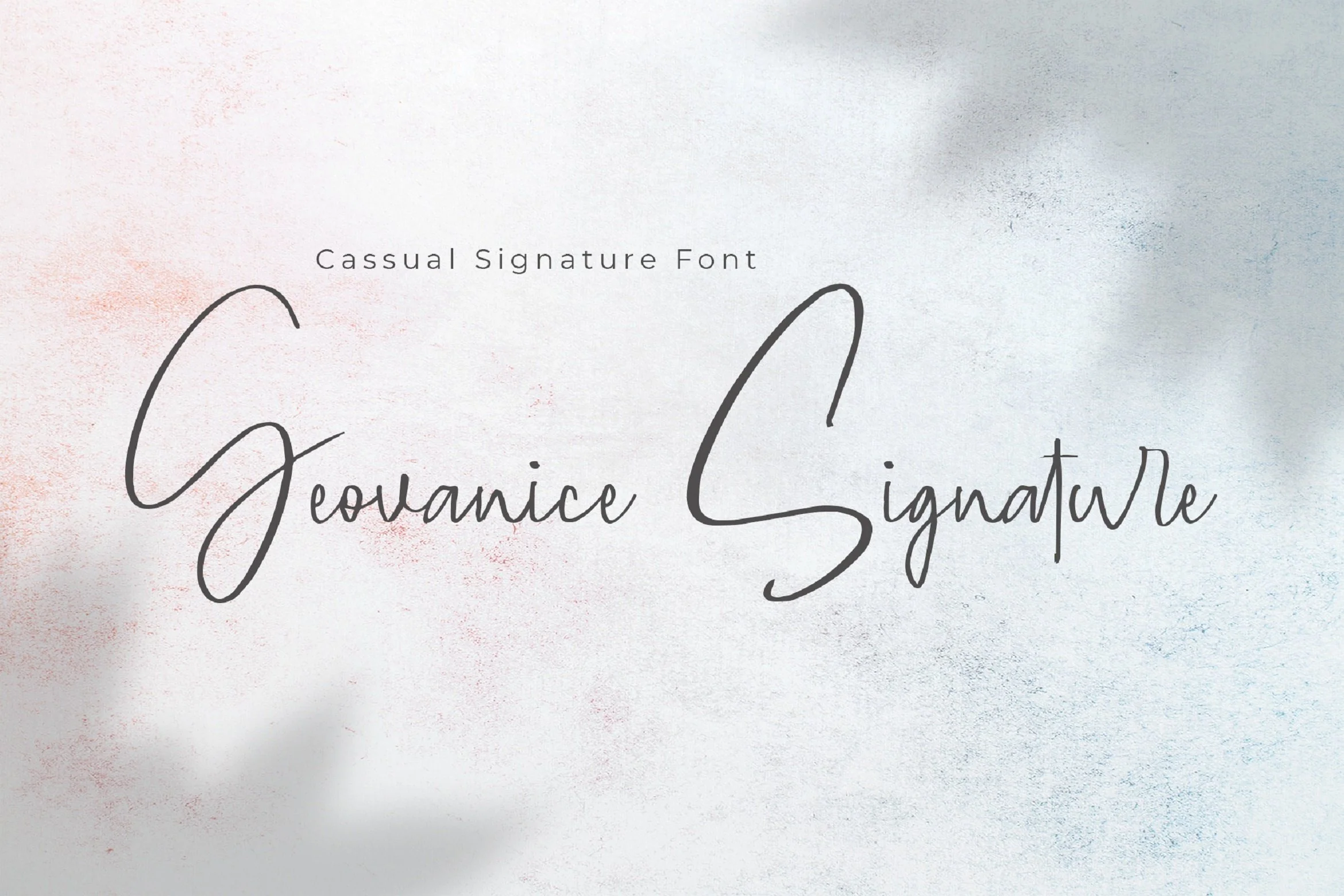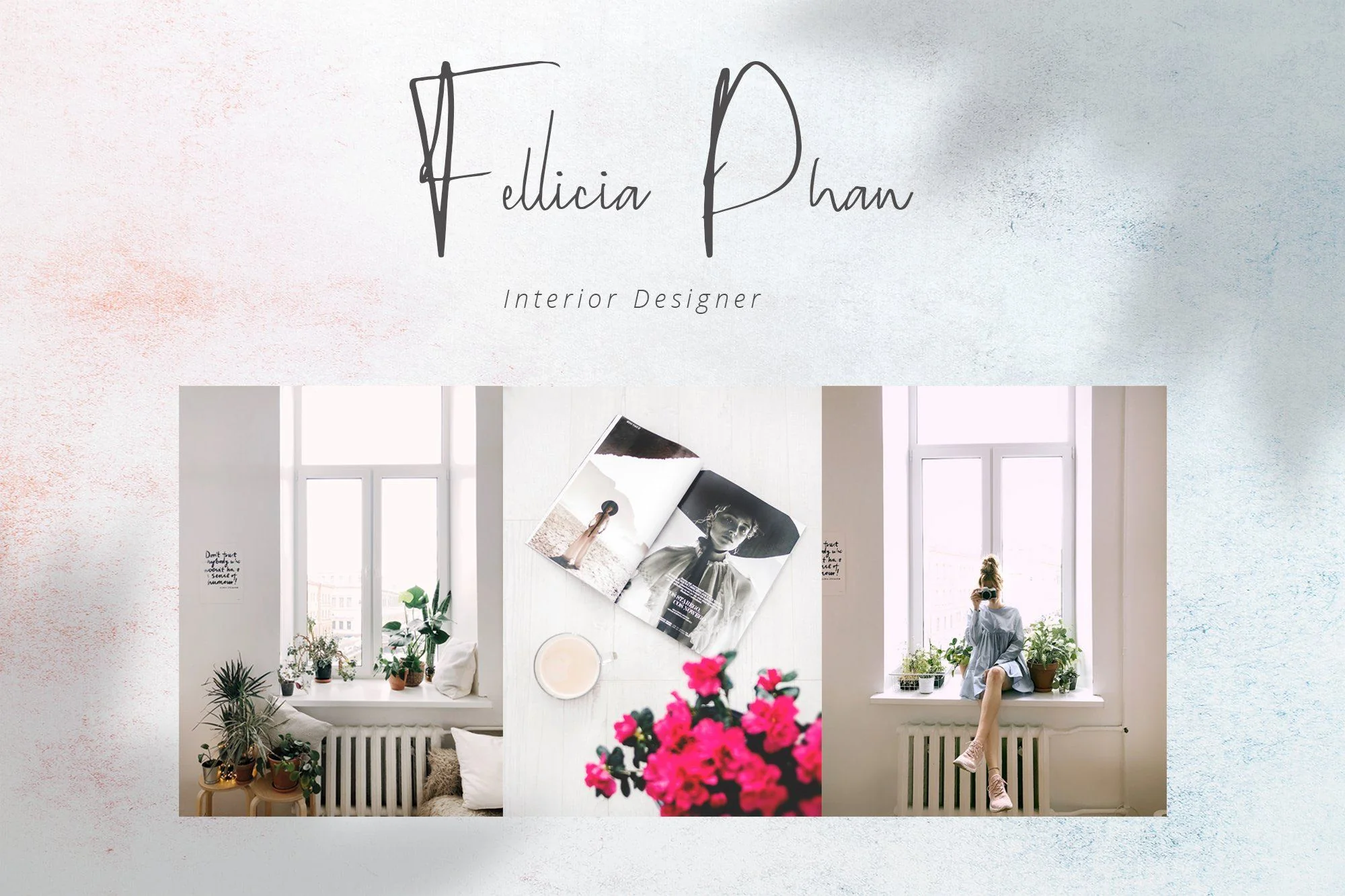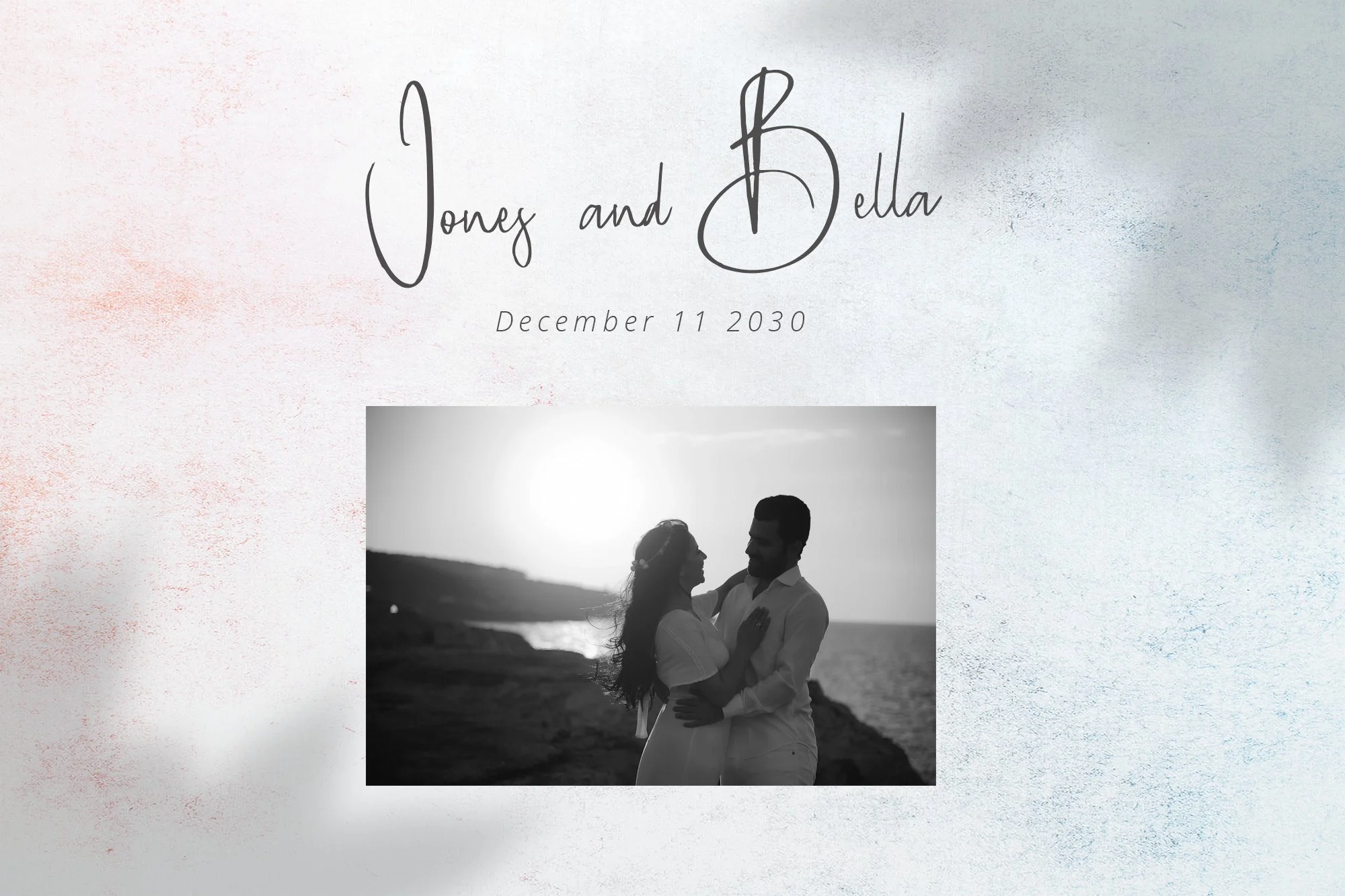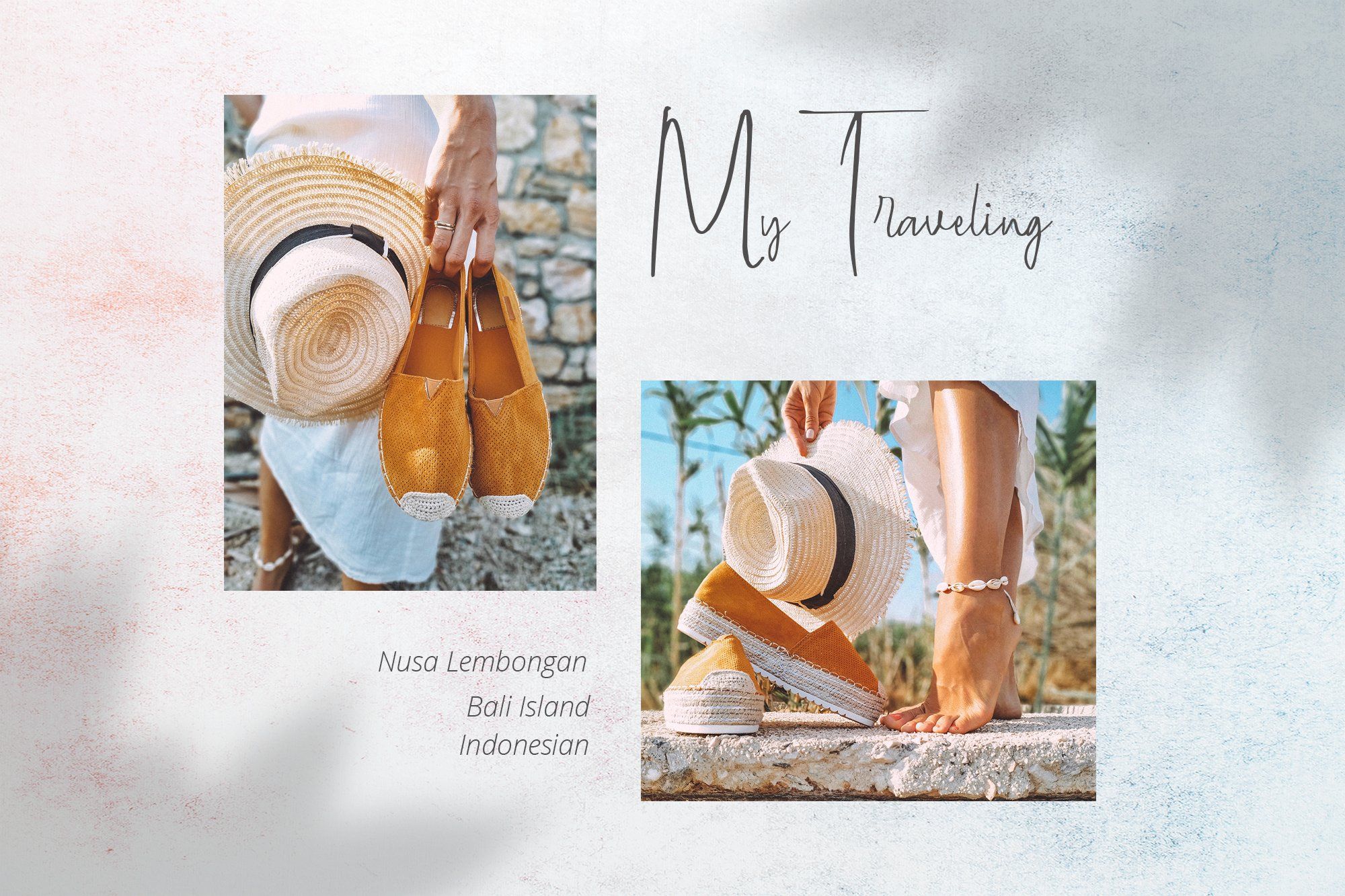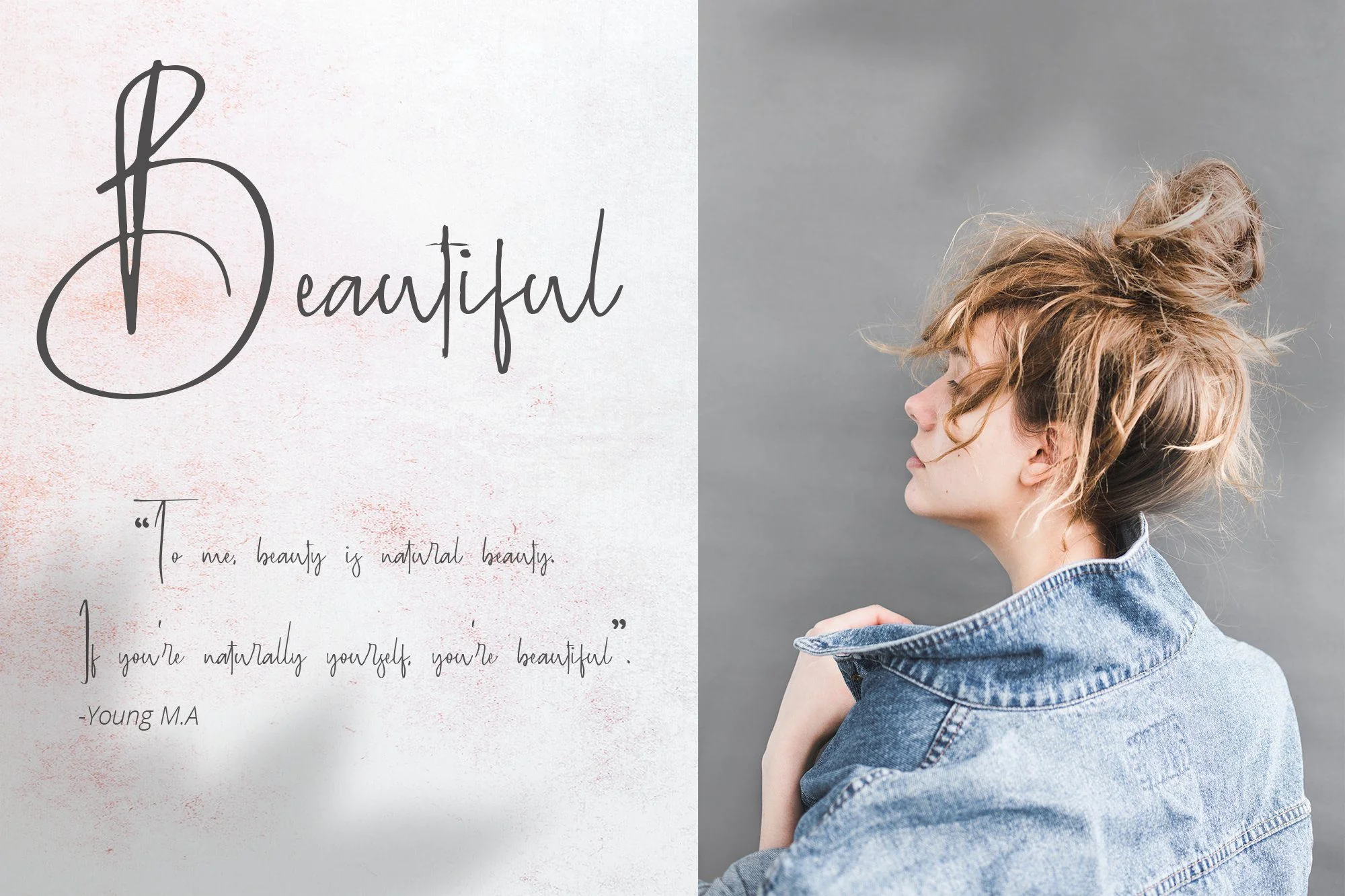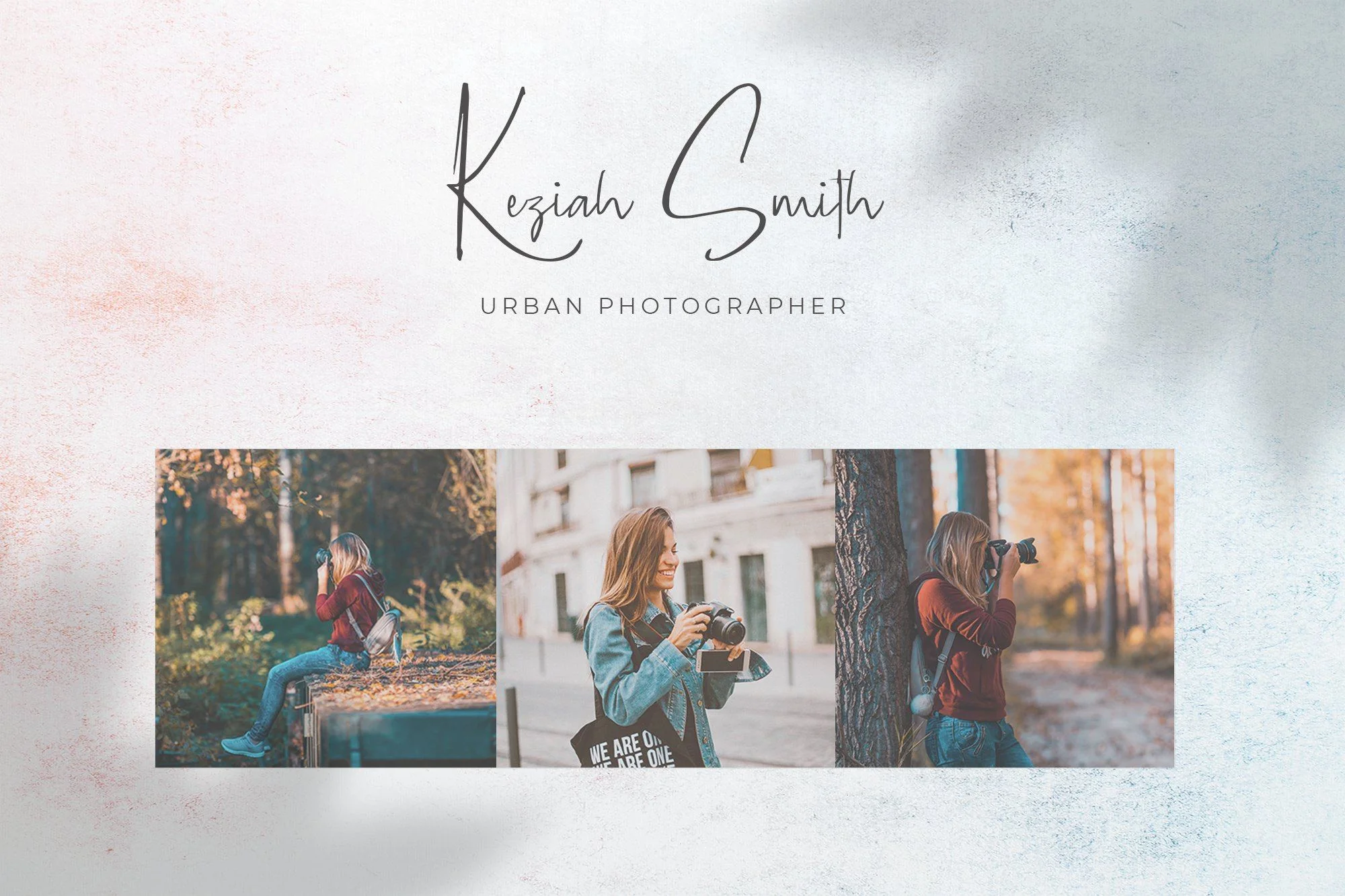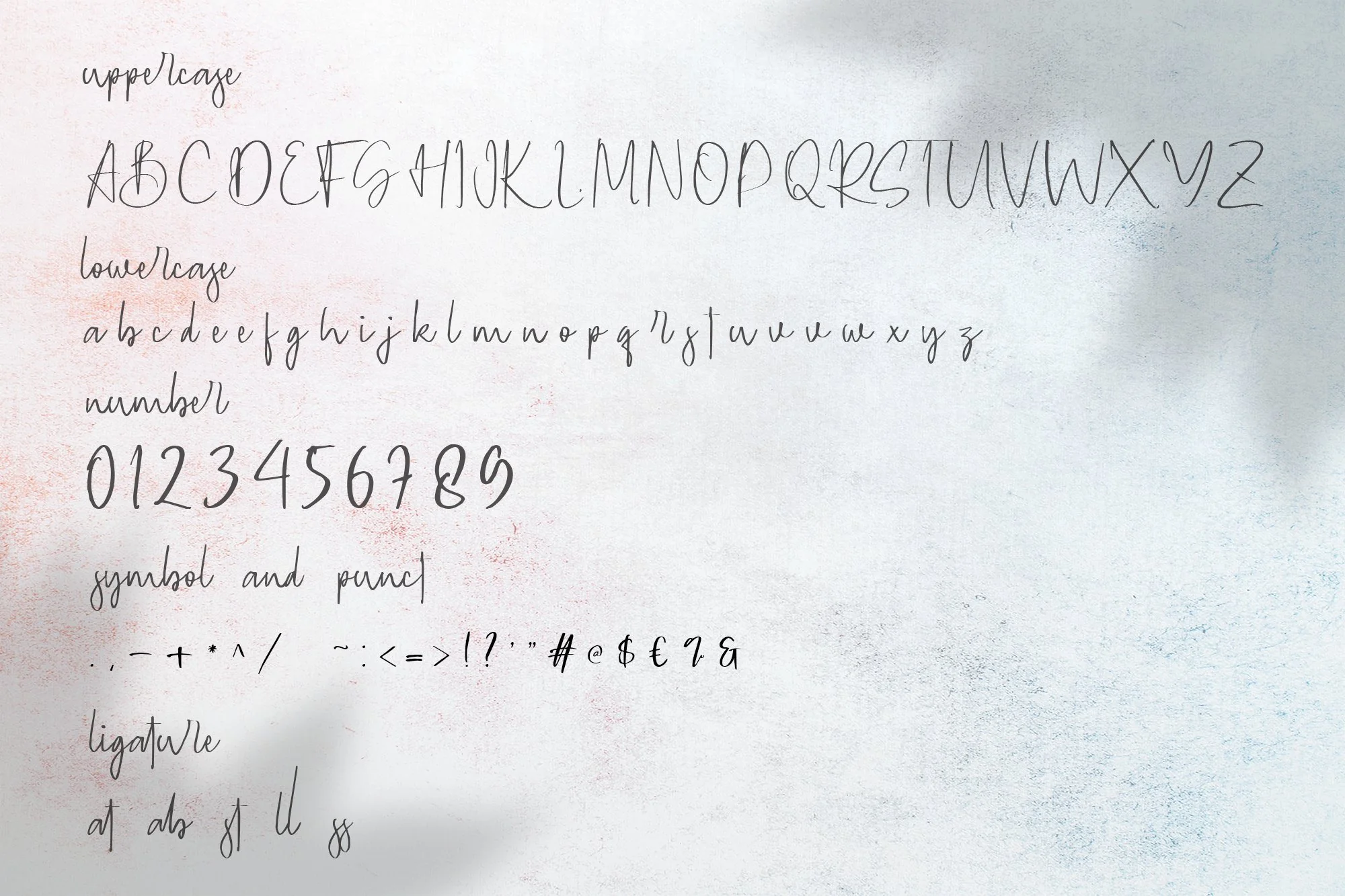
Geovanice - Casual Signature Font
Introducing Geovanice - Casual Signature Font
This Font can be used for any variety of purposes, such as: Â
Photography, Wedding Ceremony, Birthday Invitation, Fashion, Logo Type, Branding Design, Signature and also can be used for personal purpose.
This Font Template contains Modern, Elegant, Creative, Professional, Feminim and Unique Concept.